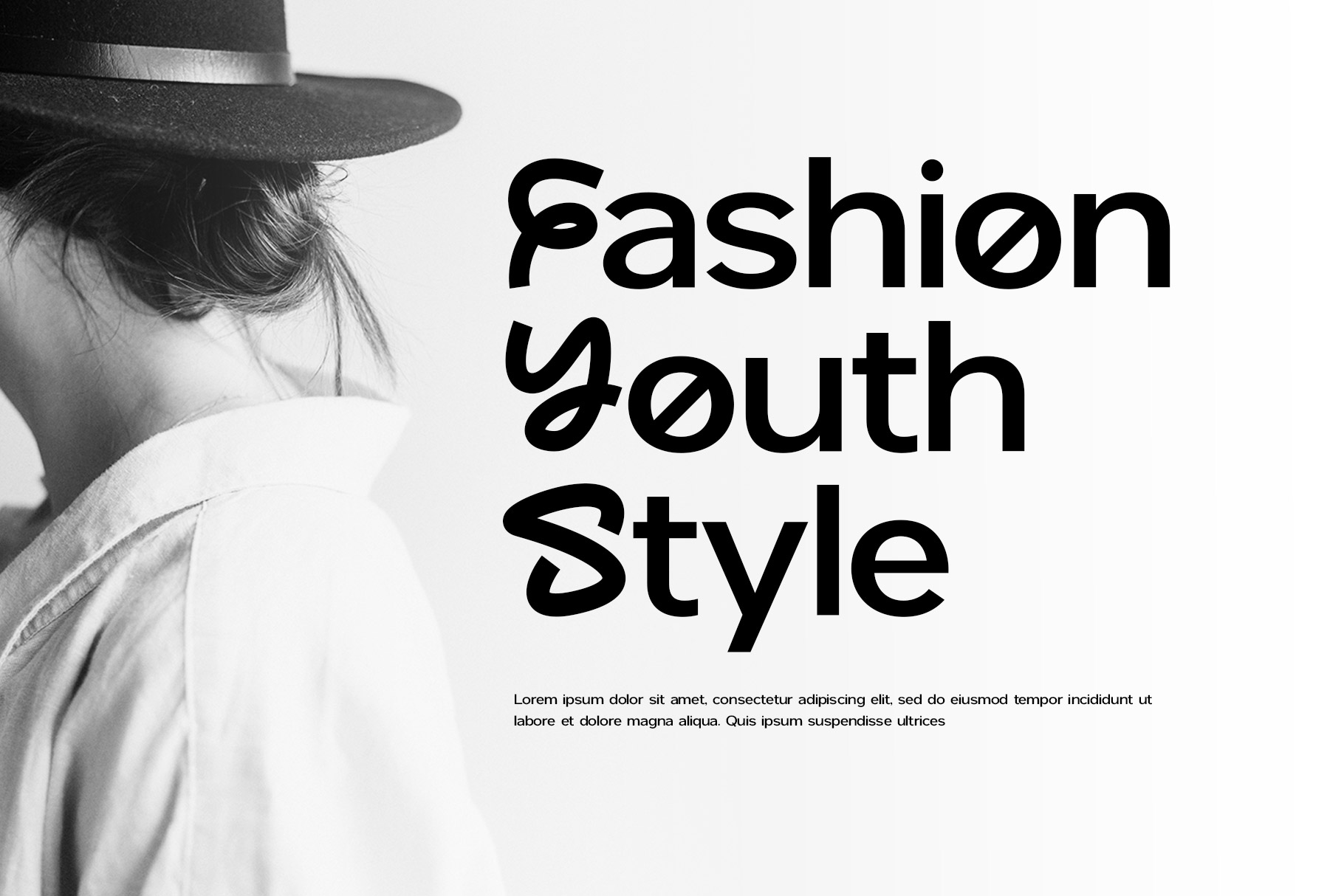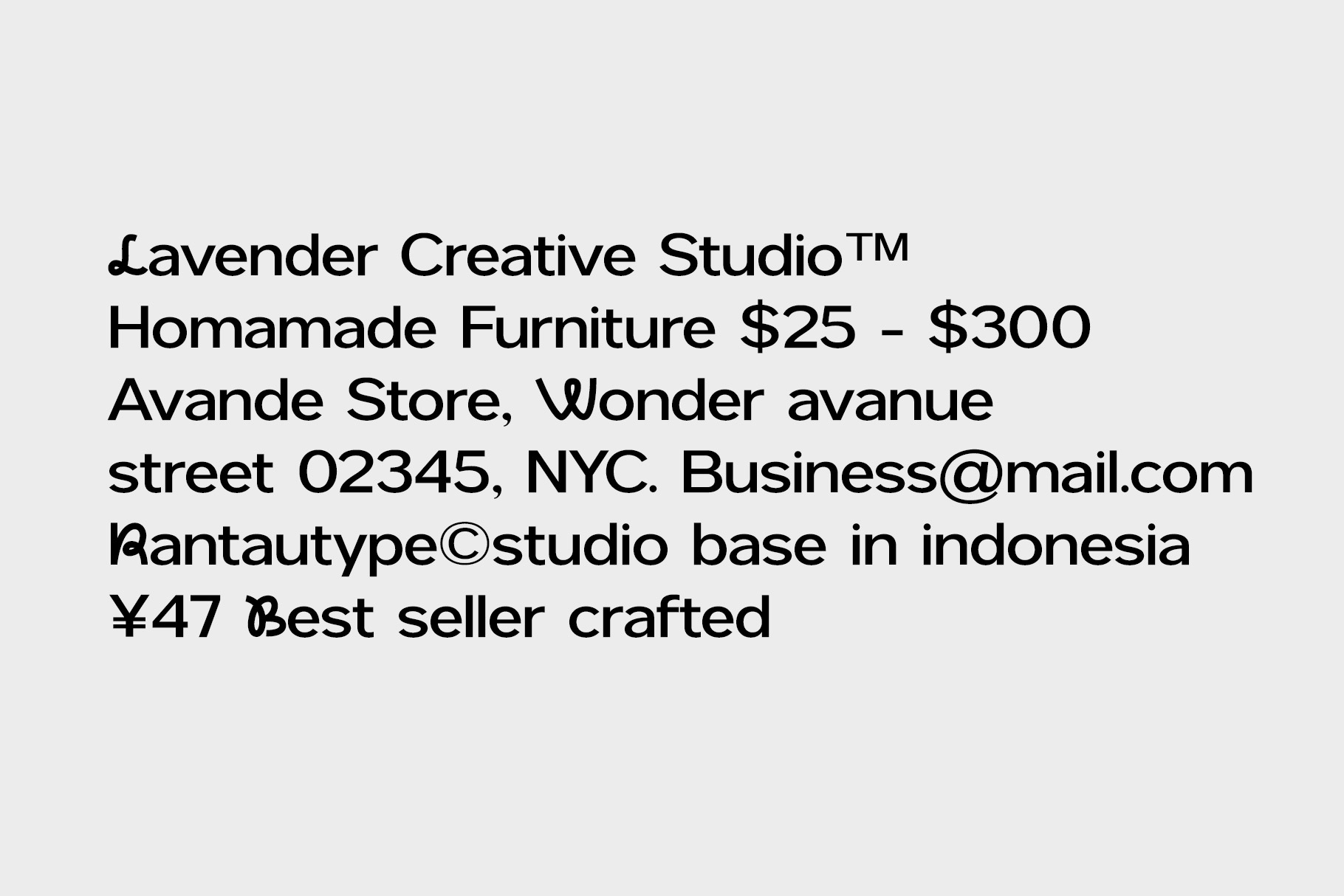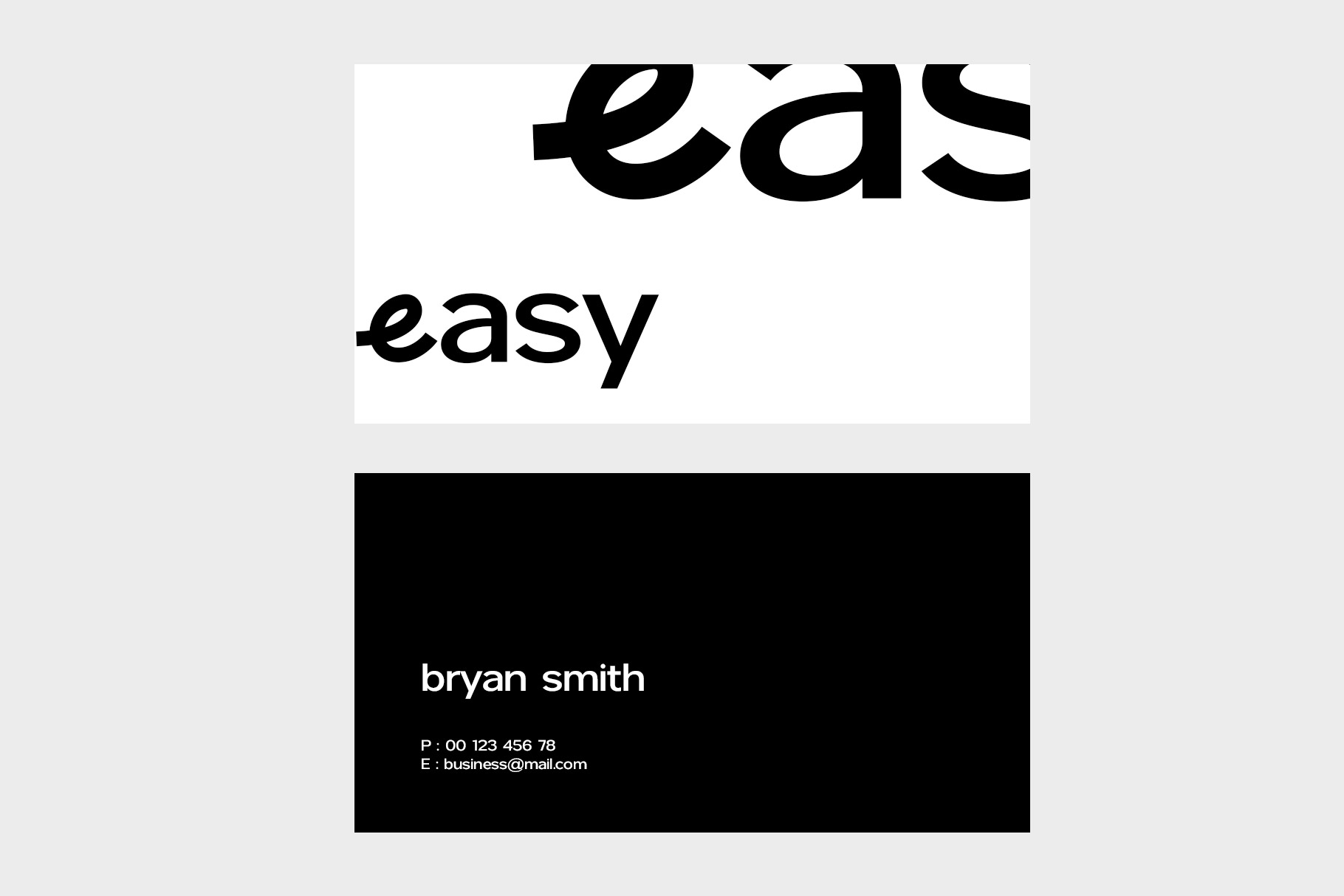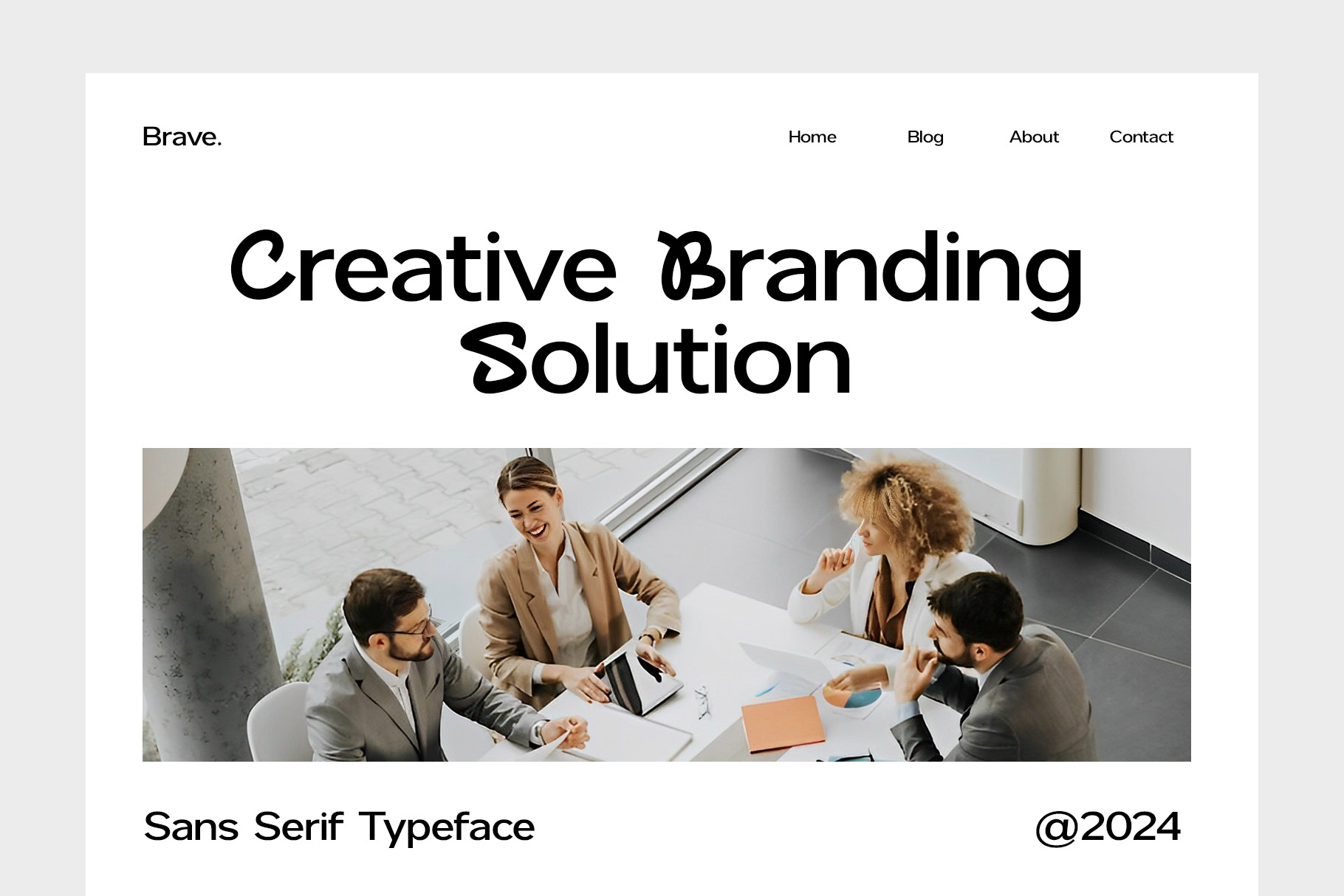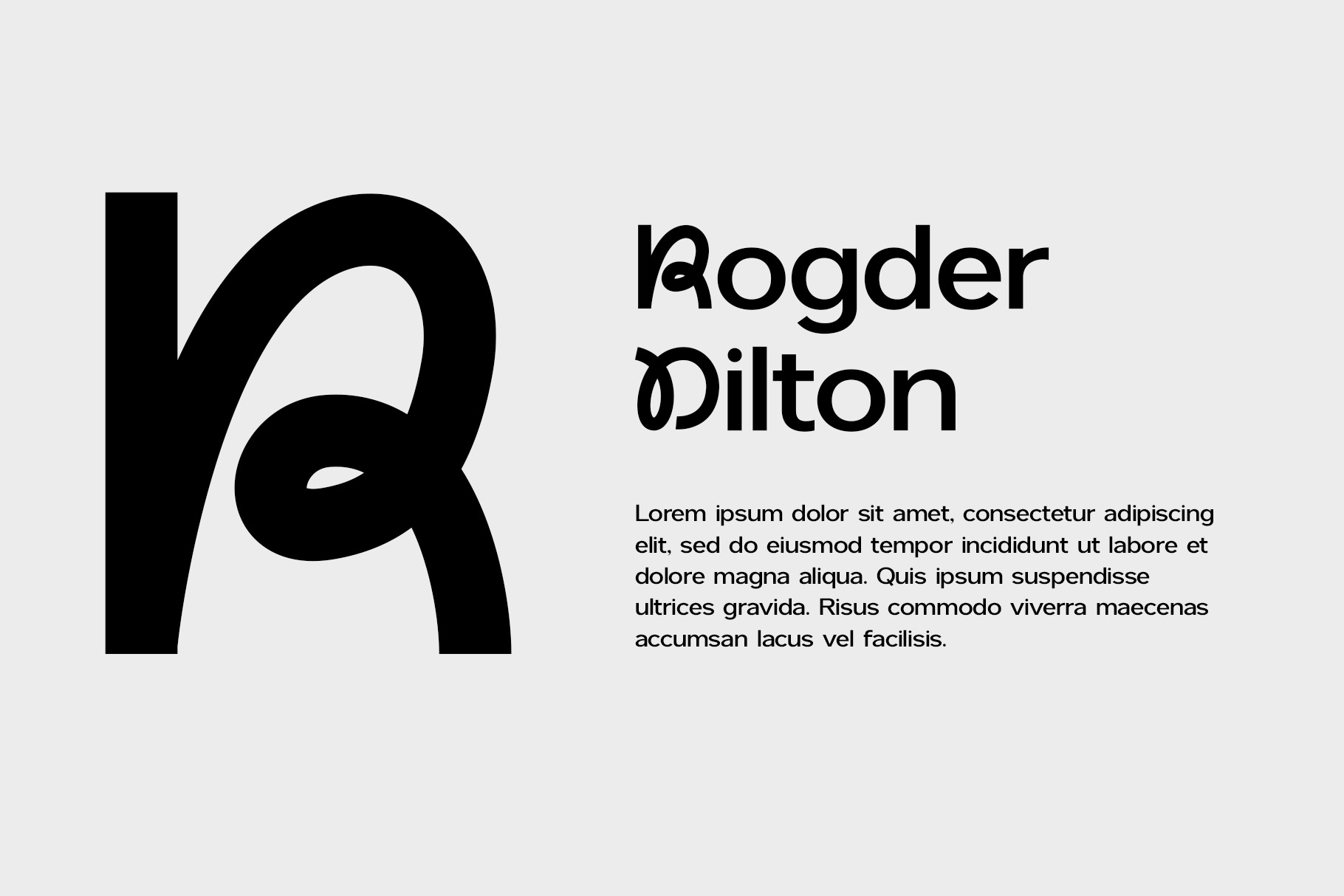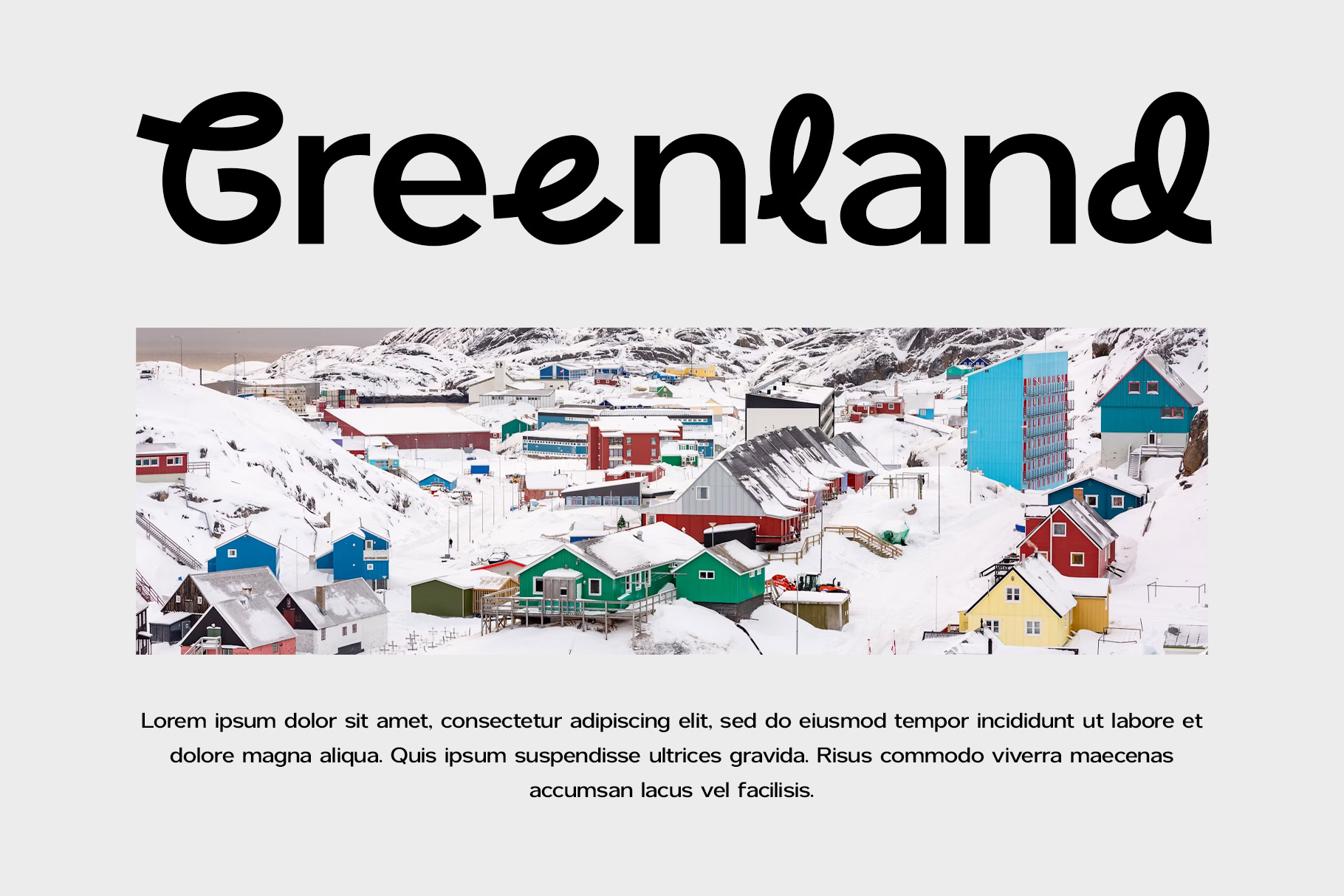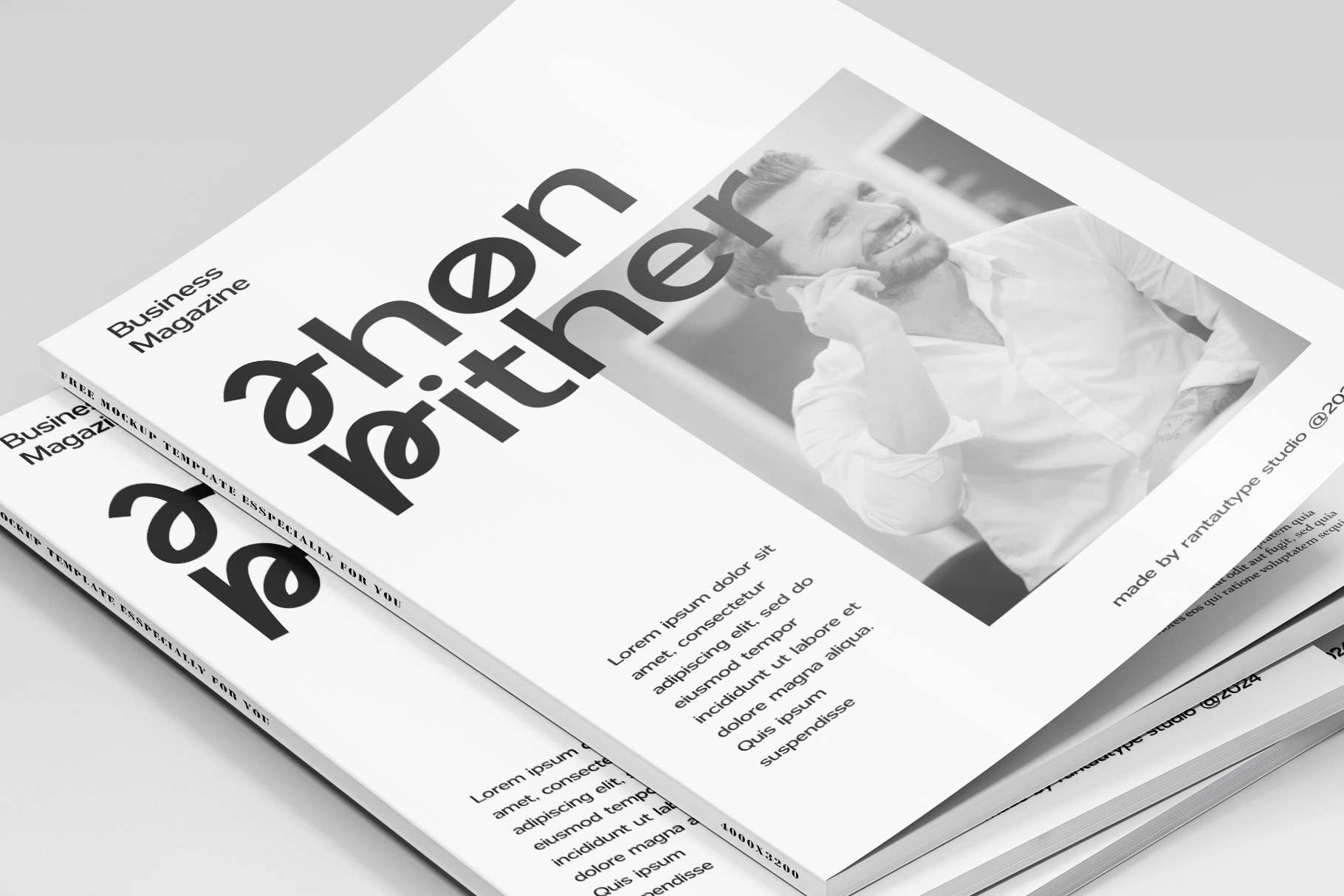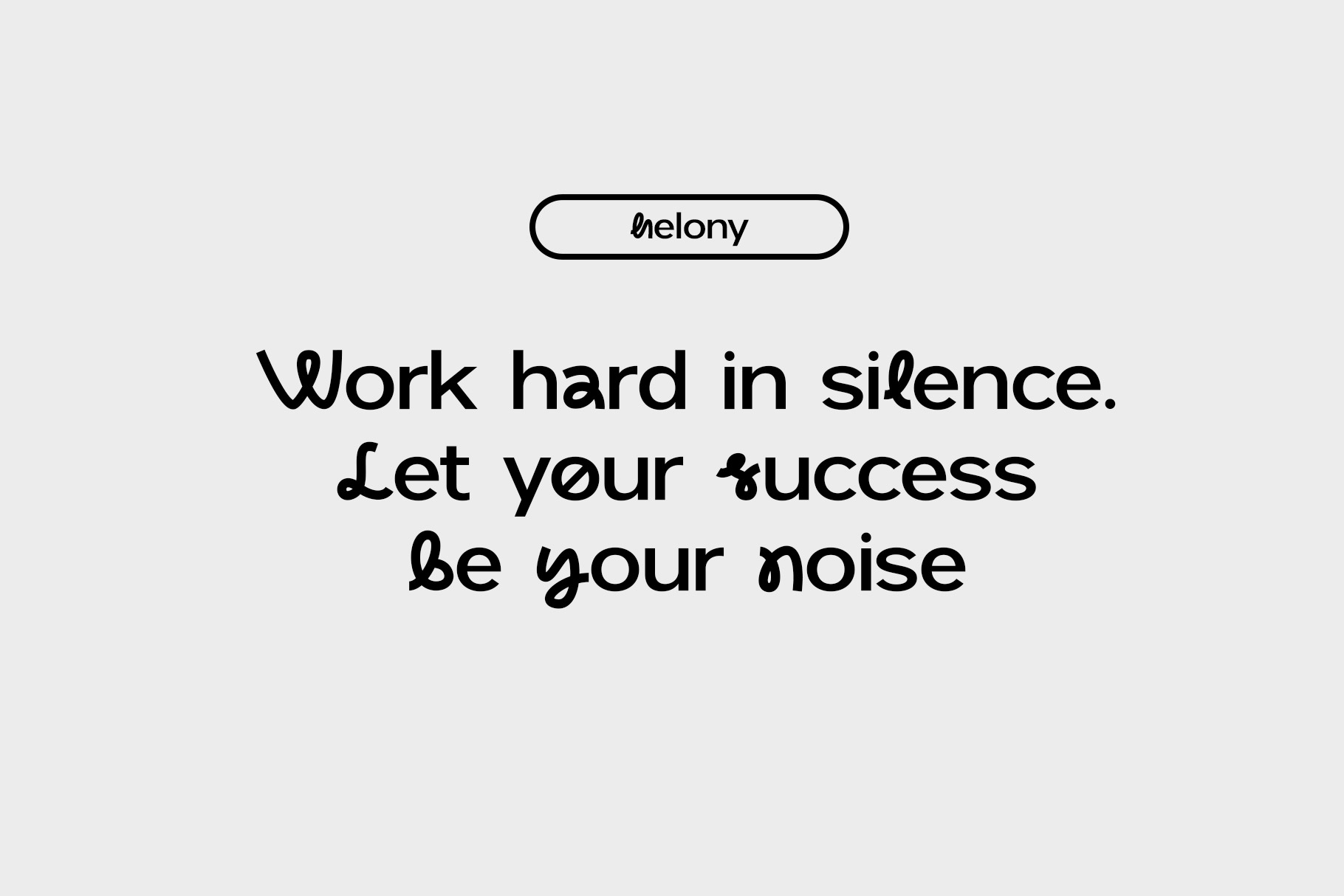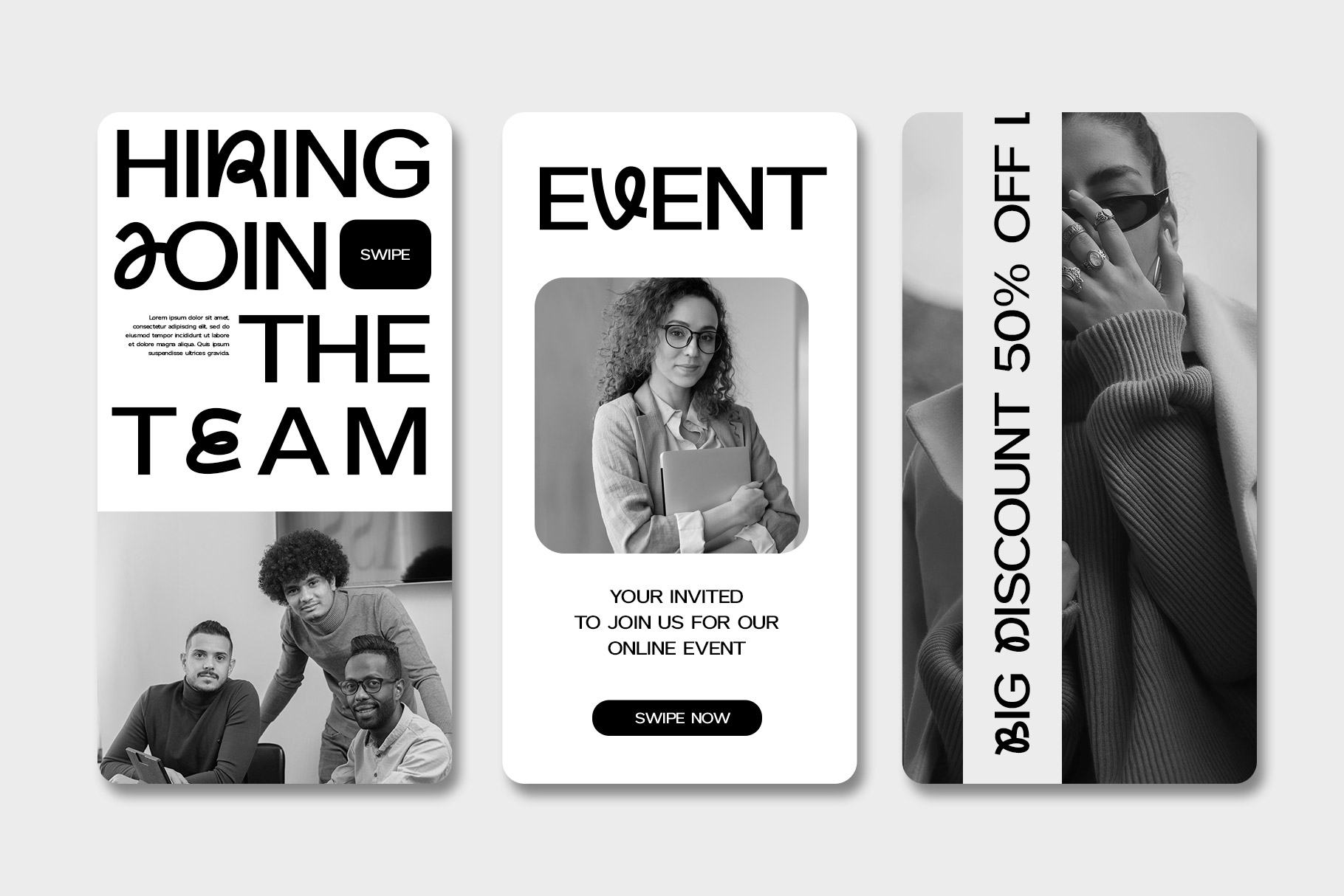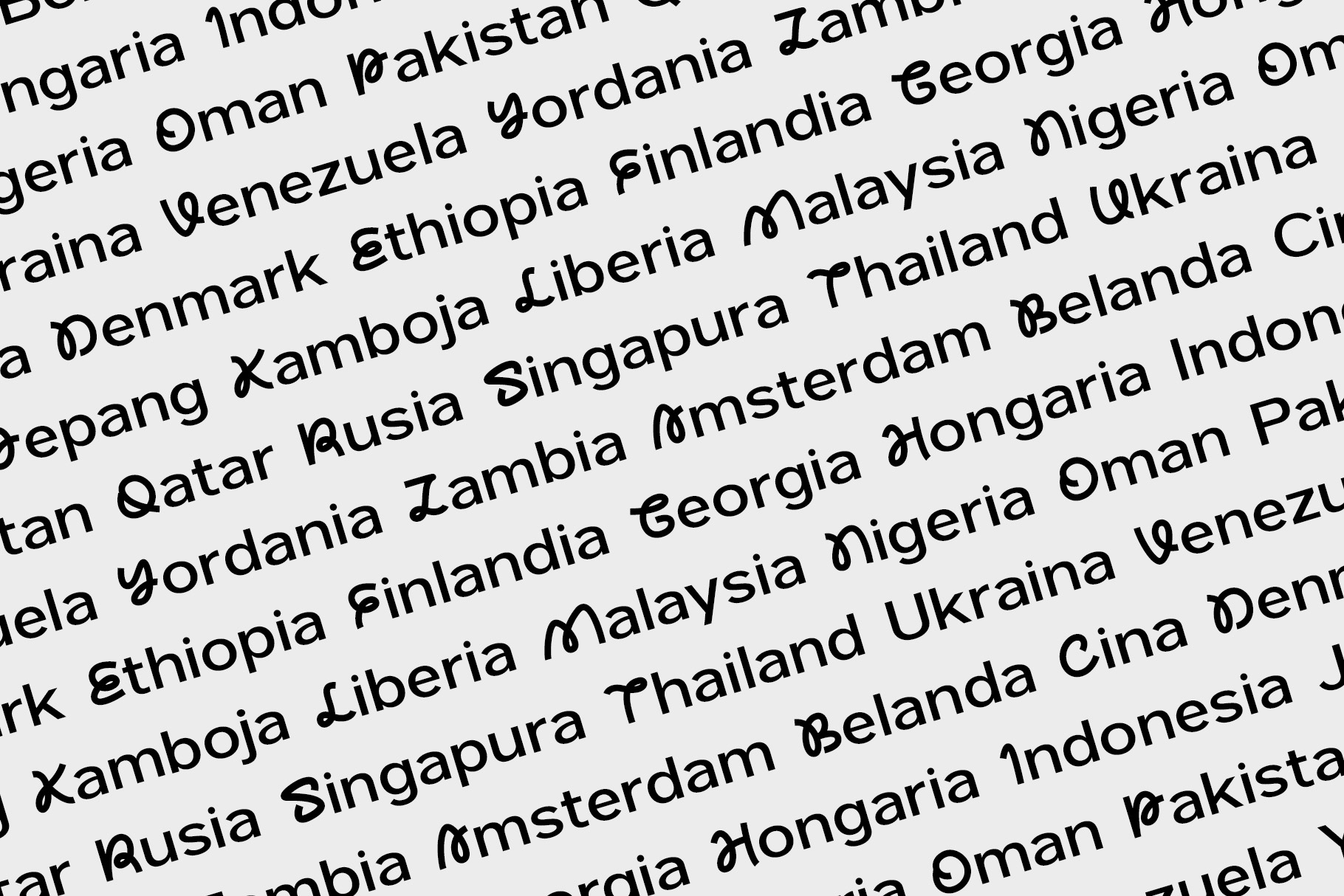
Helony Experimental Unique Sans Font
Helony is a experimental unique font with stylish curve and modern visual design. Helony come to help your project design make more stunning and attractive.
Helony is a perfectly choice for any creative endeavor, chic, lifestyle design such as logos, advertisements, watermark on photography, stationery, branding project, display and magazine, invitation, corporate brand, product design, label, business project and many other project with elegant touch.